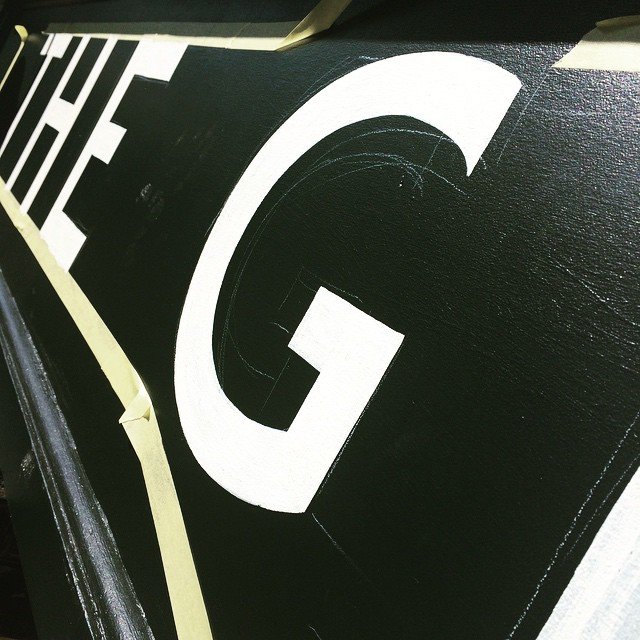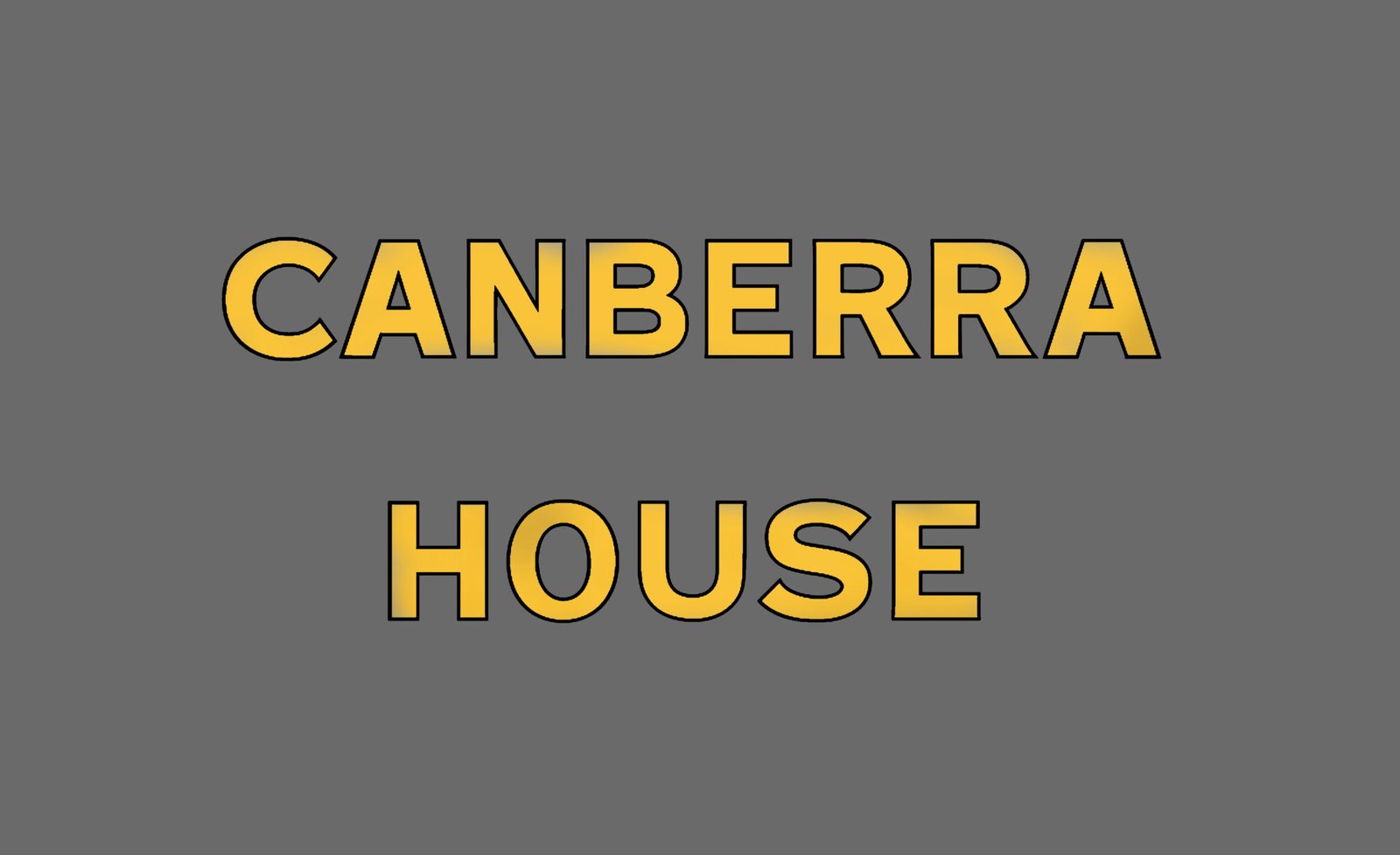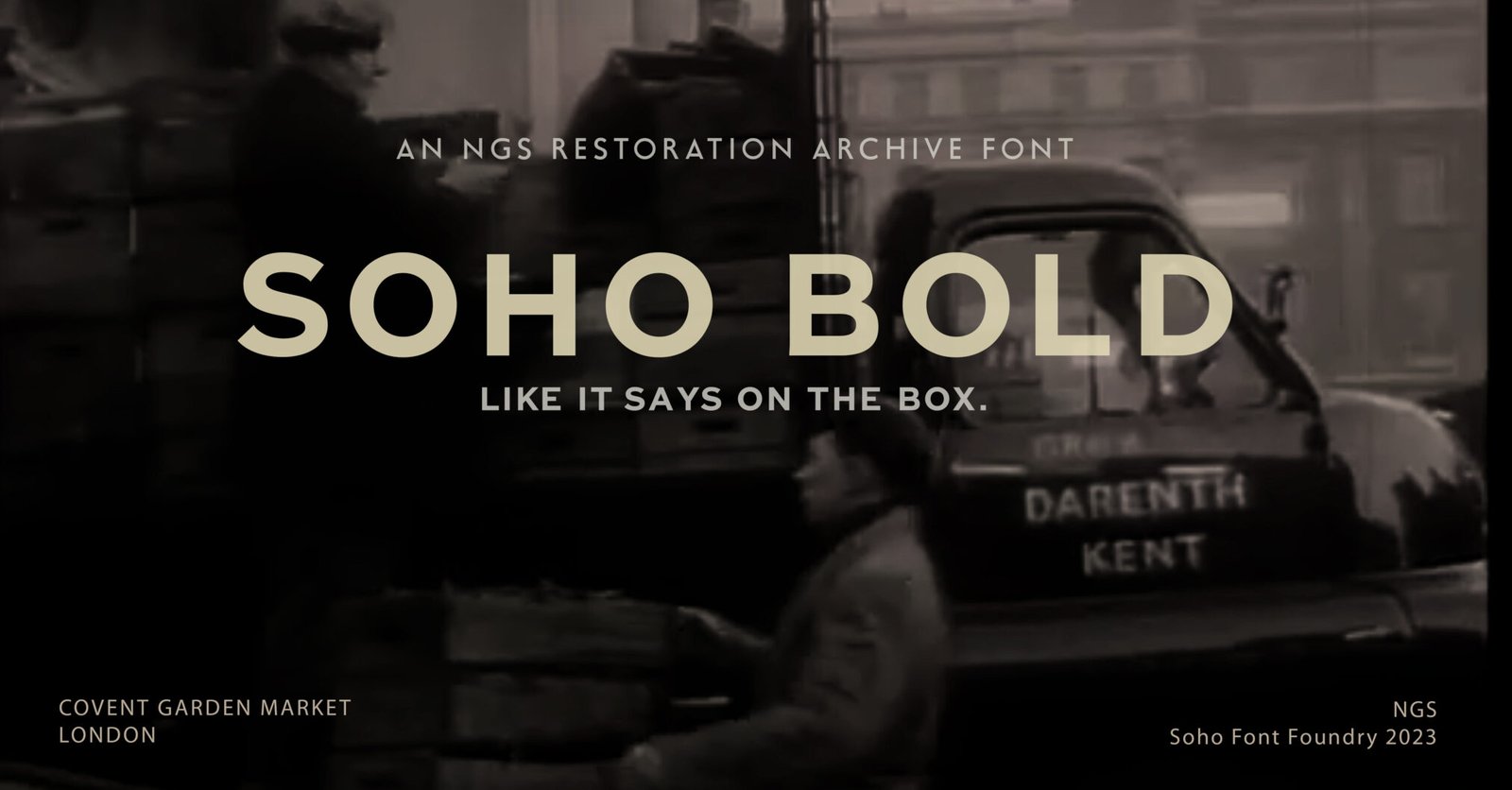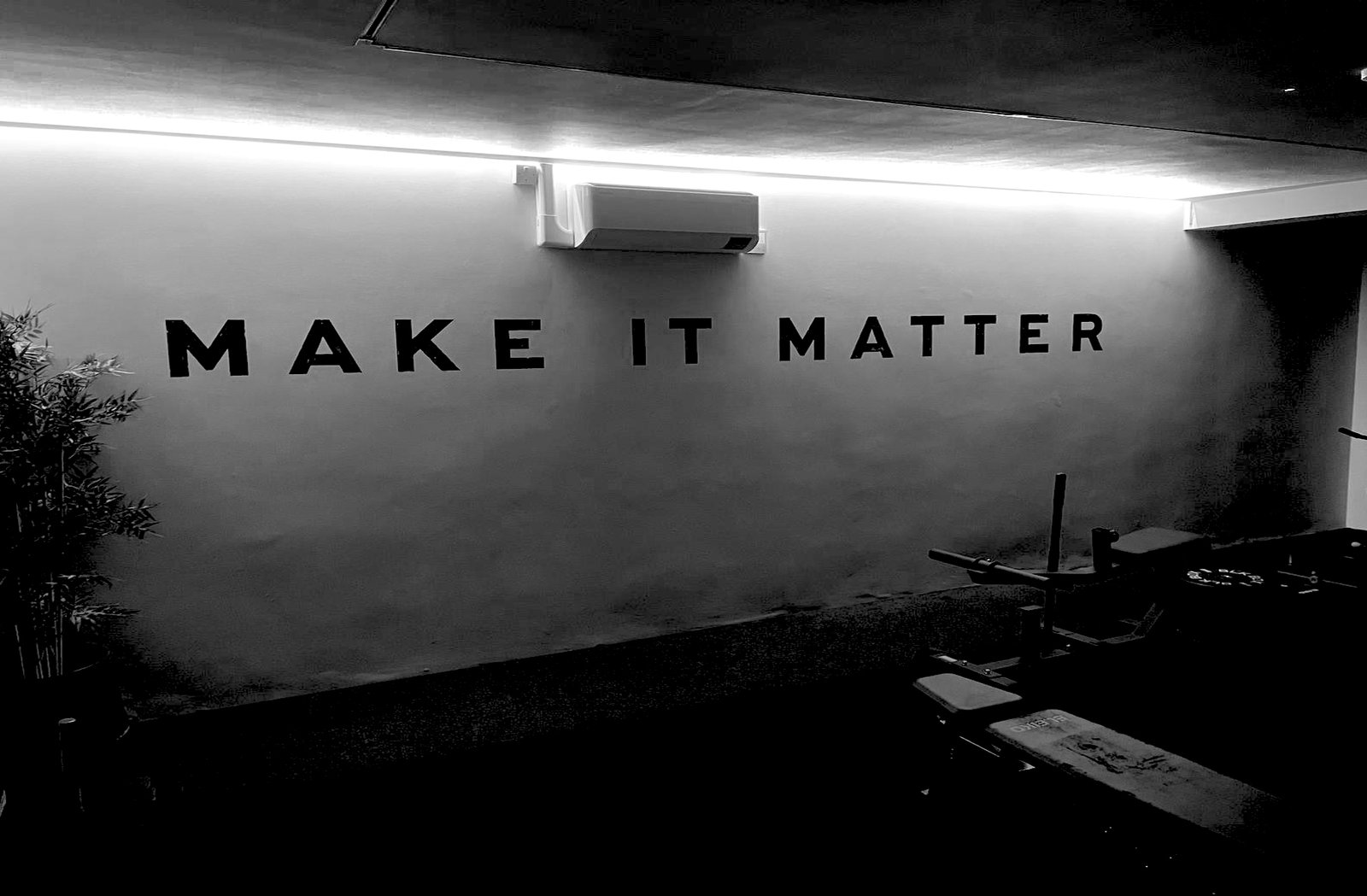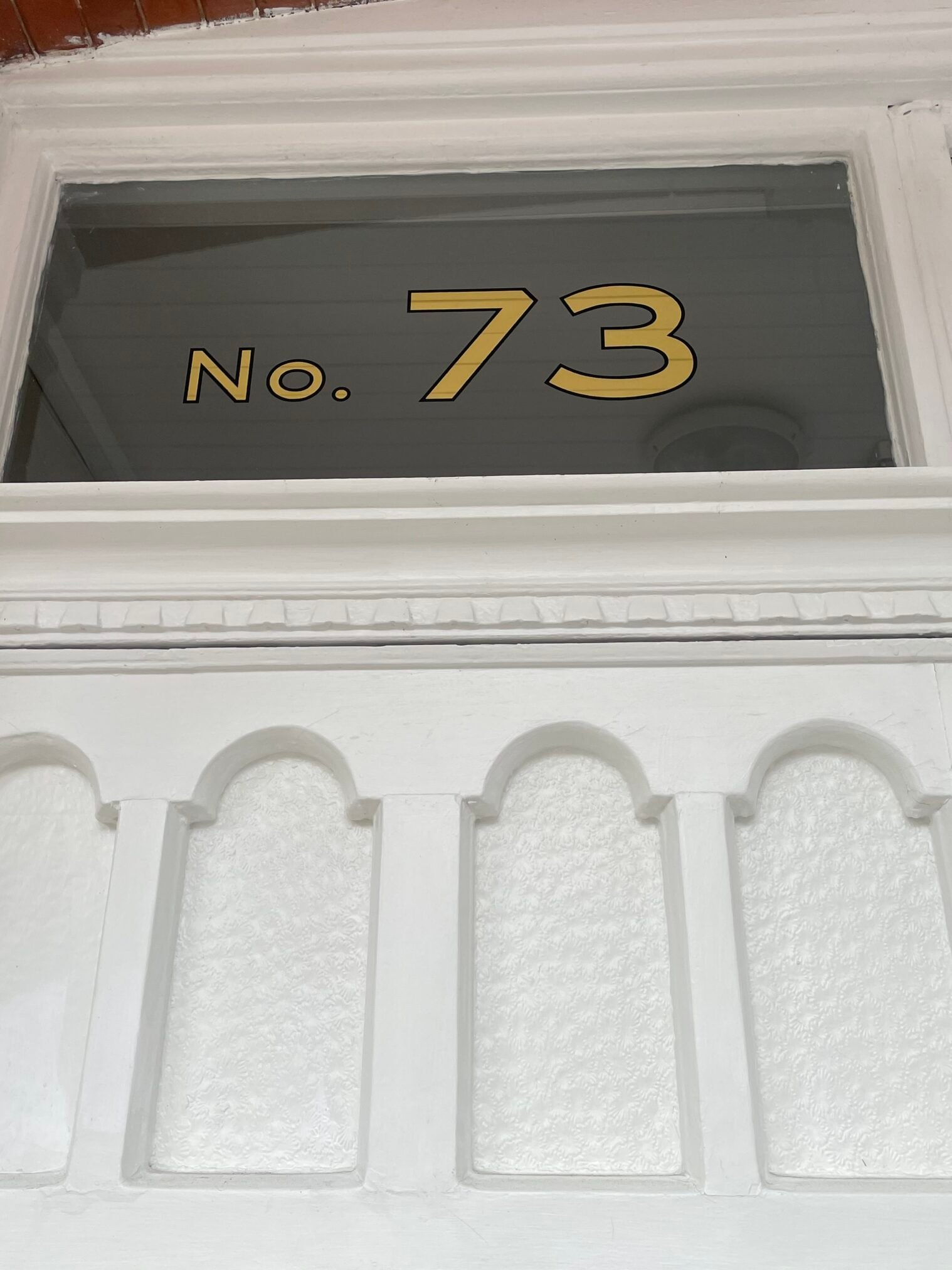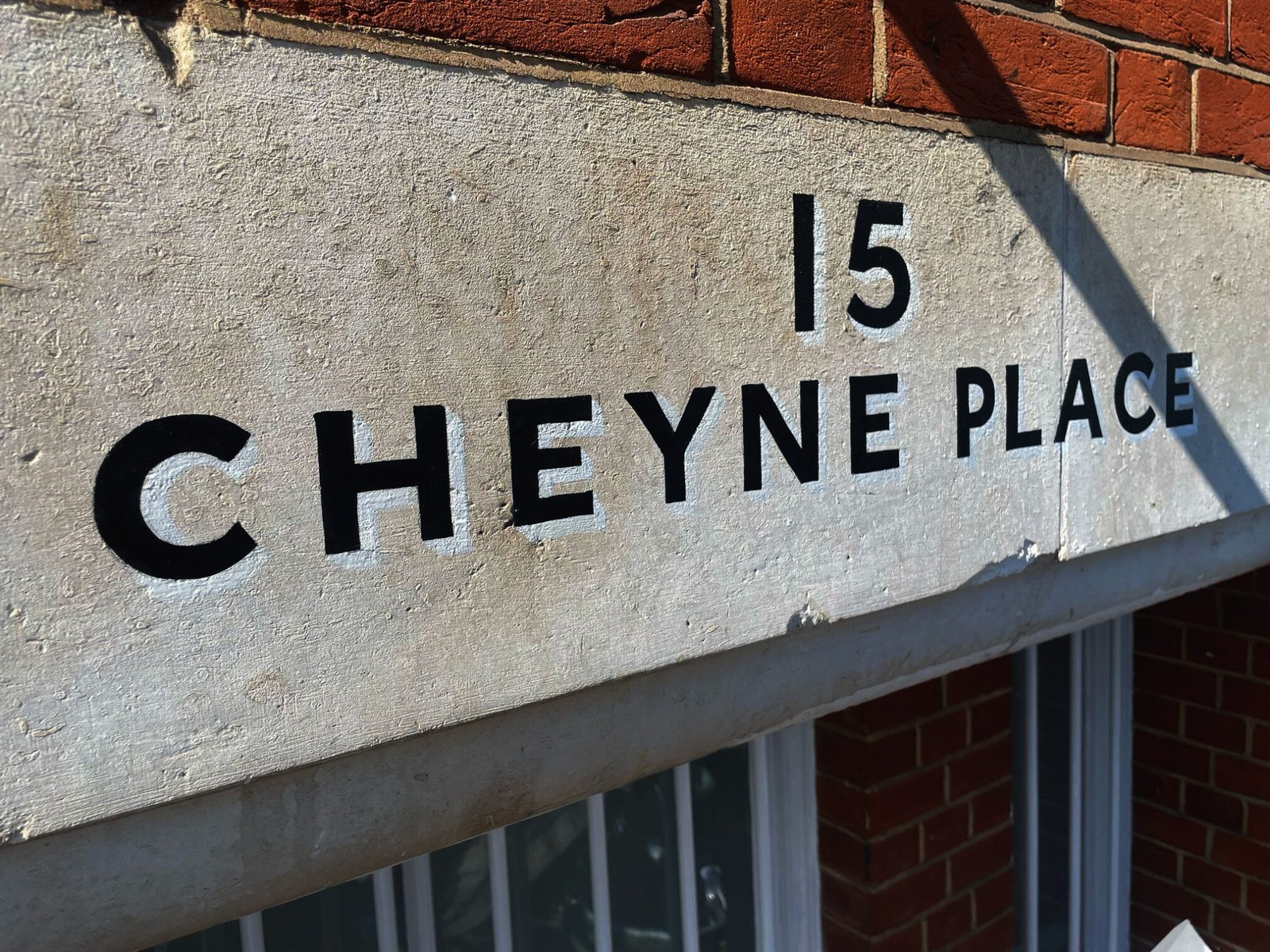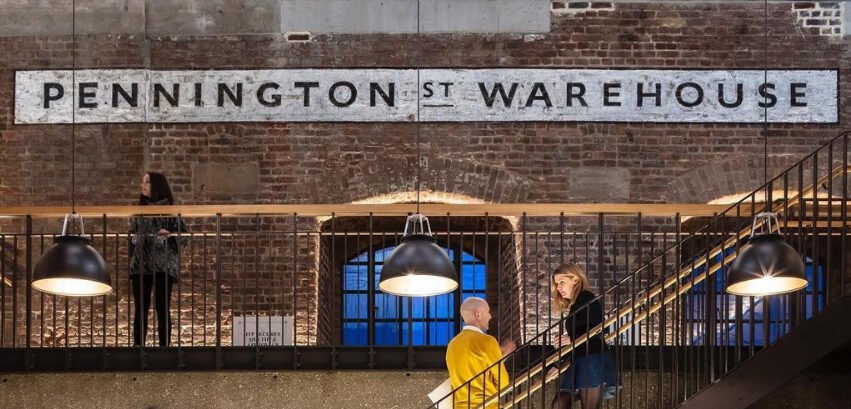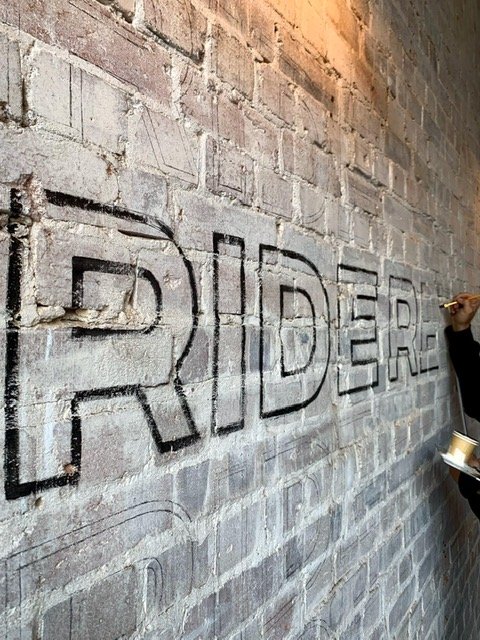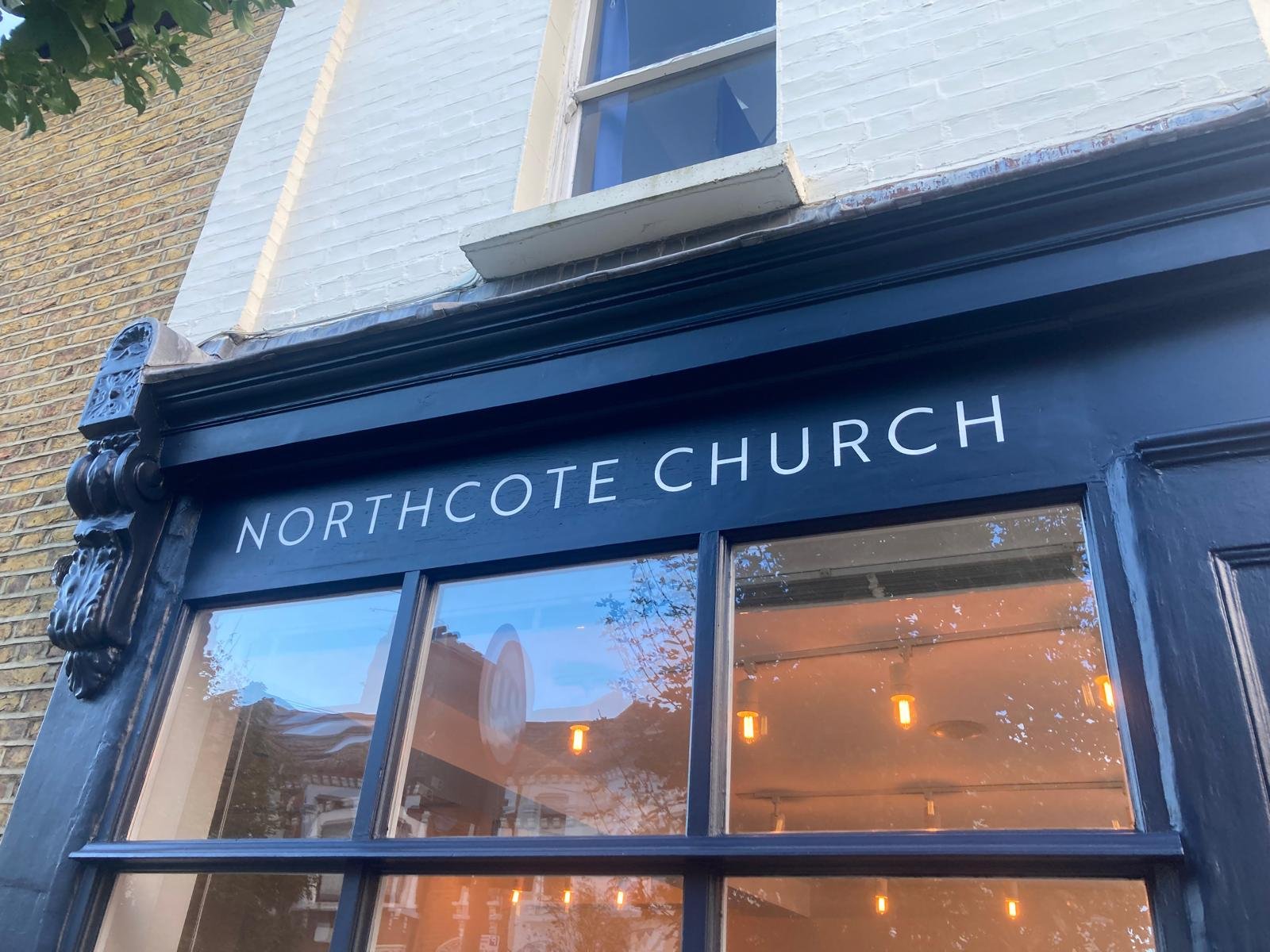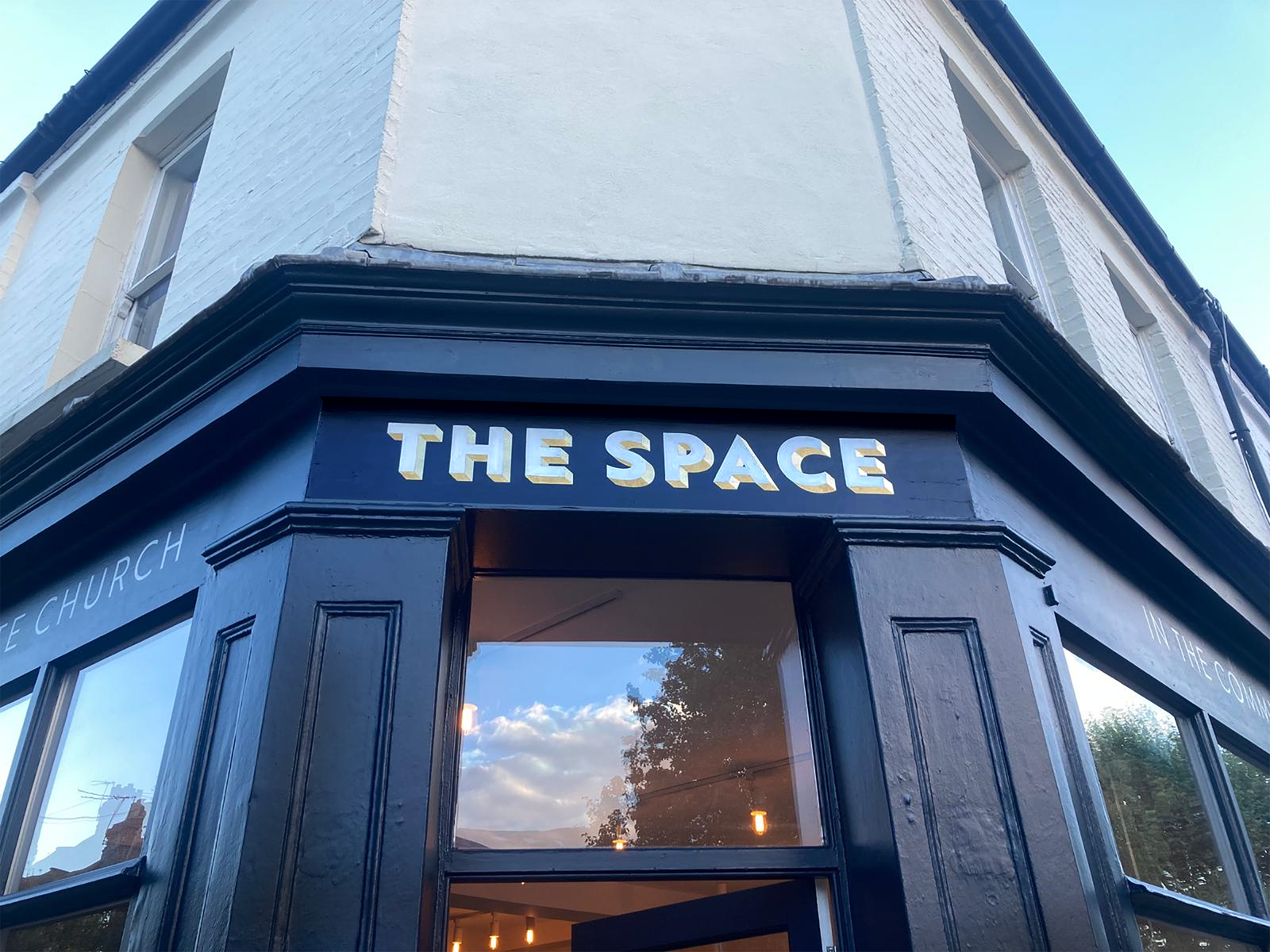
Traditional Sign Writer NGS London. Font Foundry Soho Bold Type, By NGS London Signs and Banners Co
Soho Bold type NGS London sign writing
Soho bold distressed type NGS Signs
2 stroke corners with our custom brushes NGS signs
Distressed painted Retro NGS pub sign
Restored Caslon Soho Bold Lettering, Portland Mews, Bond Street NGS.
Soho Type,  restoration Signwriting NGS Traditional sign writers, of London, The Globe, Pub Sign writer, NGS Marylebone
Soho Bold Type, NGS restoration Signwriting
Soho Bold type NGS London sign writing
Soho Bold Classic London Typefaces, Soho Type, Wardour Mews restoration Signwriting
Soho Bold typeface NGS, Soho Type, Wardour Mews restoration Signwriting
Soho Type, restoration Signwriting NGS Font design services
Need a beautifully built Regular weight or Bold? It’s a great face to sell pretty much anything (worthy…), on the planet, from Bentleys to bubble gum.
Soho Bold Classic London Typefaces, Bentley or Bubble gum... NGS have the typefaces for your brand. Graphic design mastery.
Soho Bold Classic London Typefaces, Soho Bold type NGS London sign writing, Soho Type, restoration Signwriting NGS Font design services
Brand ID painted onto a wall, In Gym, London
Soho Bold Classic London Typefaces, Restoration of Canberra House gold leaf transom, regent street, Gold Restored Caslon Soho Bold Lettering Bond Street NGS. Specialist vintage lettering artists. retro vintage signage brand design
Soho Type, restoration Signwriting NGS Font design services
Cheyne Place Soho Bold type by NGS London
Soho Bold at the Corner House Wembley
Soho bold distressed type NGS Signs,
Soho Bold Classic London Typefaces.Soho bold distressed type NGS Signs